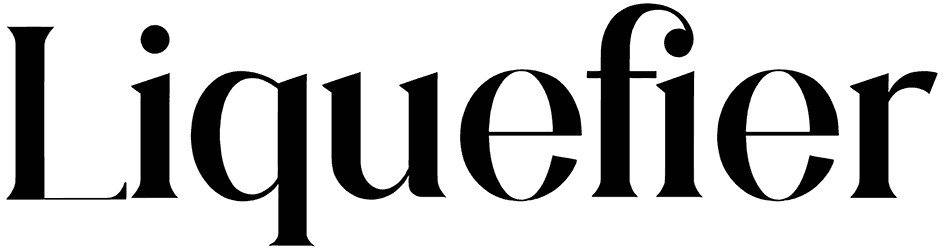
Liquefier Font
Make sure it takes your audience a while to absorb all the charm radiating from your text by deciding Liquefier over other business fonts. Everything looks so tasteful with the classic theme of this serif font and its ligatures.
You’re going to get so lucky with the magical letters of Liquefier in your branding. Just wait till you see them on business cards for makeup artists and legal firms, and you won’t be able to keep your hands off them.